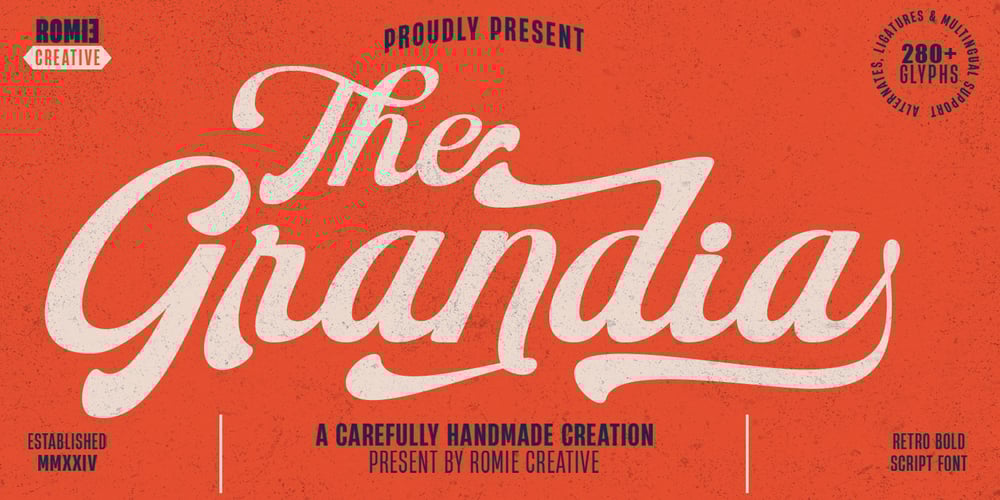
The Grandia
The Grandia font
The Grandia Font Family was designed by Romi Rahmadi and published by Romie Creative. The Grandia contains 1 styles and family package options. Introducing The Grandia, A Carefully Handmade Creation fonts with strong styles and circle movement. It’s allowing you to create hand lettering is an instant. The idea is to help designers to combine and incorporate together of the fonts in your design creative work. The Grandia A Carefully Handmade Creation Font is a hand-lettered bold and smooth script. This font is awesome for your creative project such as Logotype, Branding, Packaging, Merchandise, label, and much more.